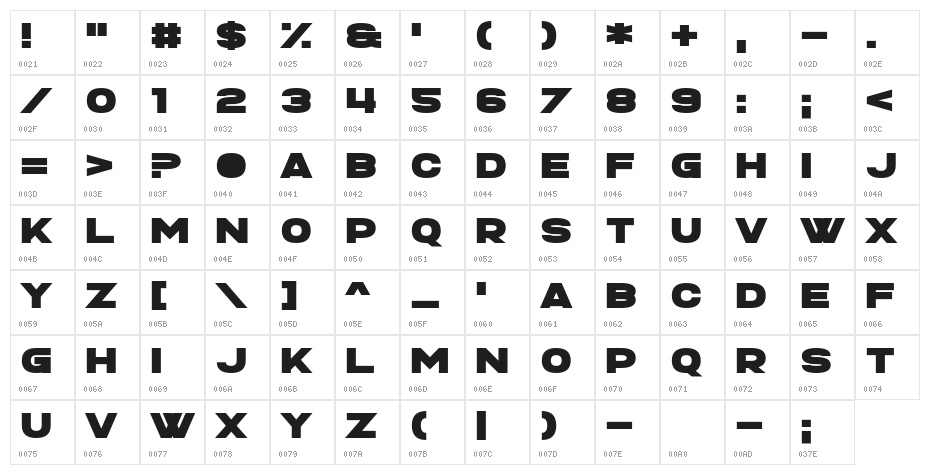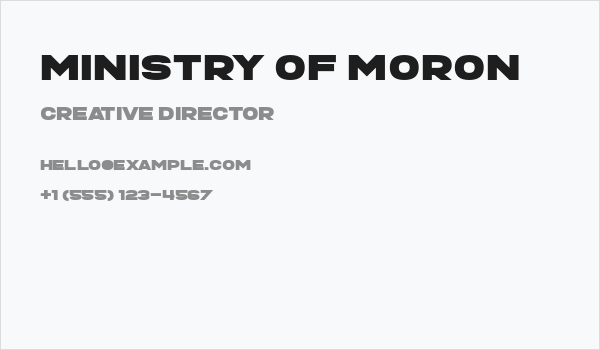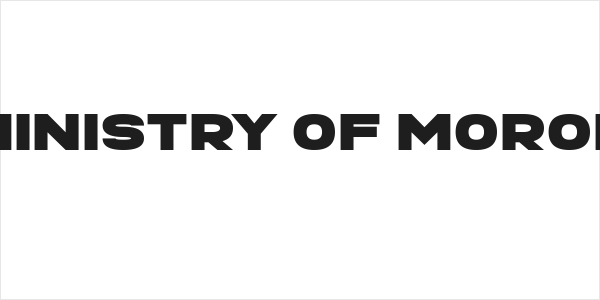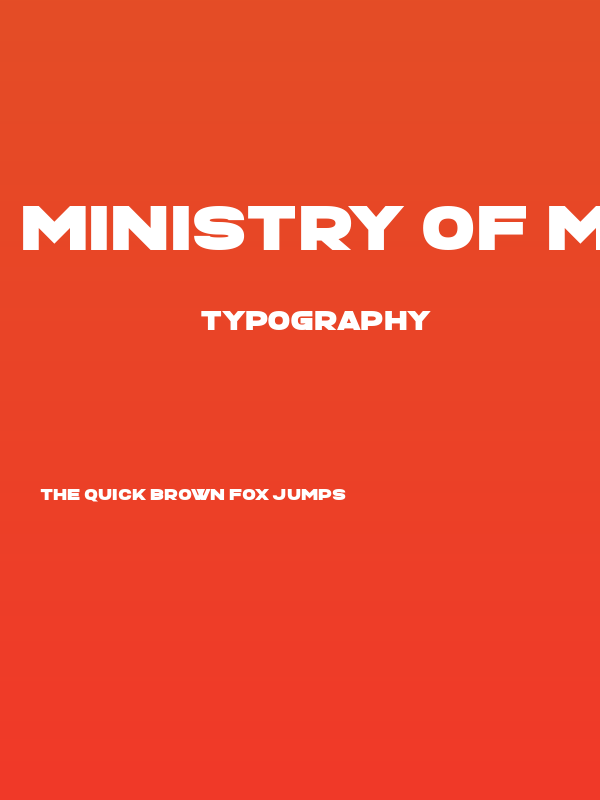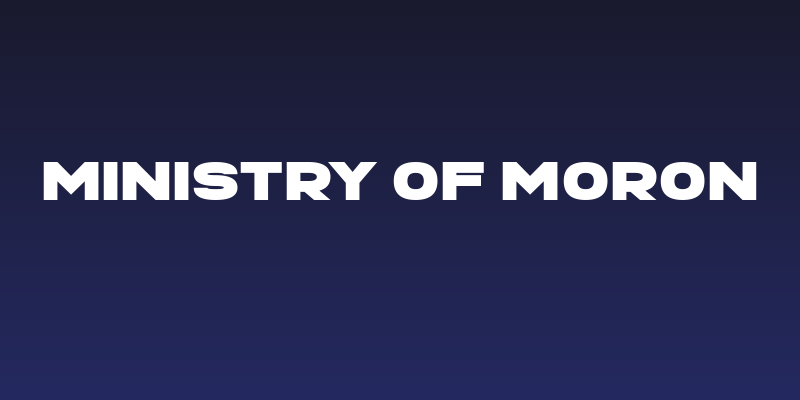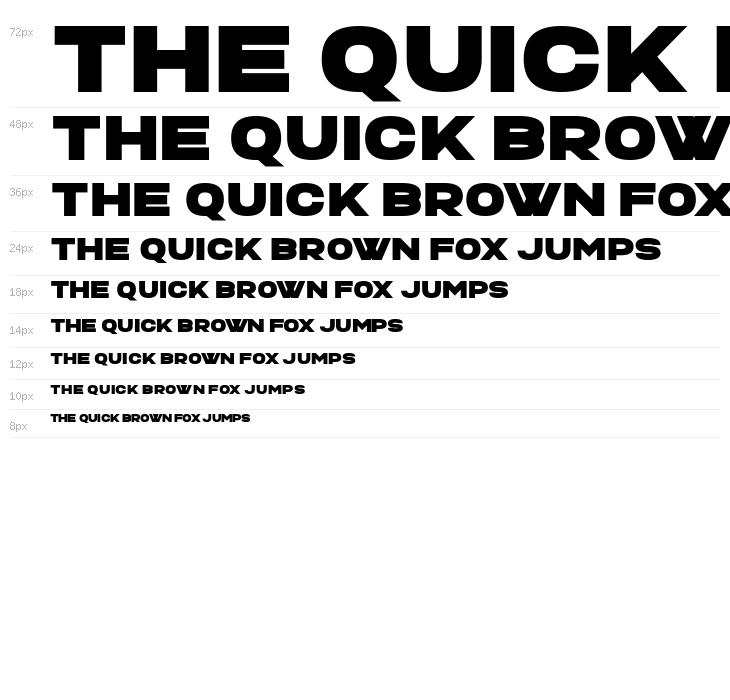
Ministry of Moron Font
Ministry of Moron Description
This font features a bold, geometric design with strong, angular lines and a modern aesthetic. The characters are uniformly wide, creating a sense of stability and strength. The uppercase letters are particularly striking, with a blocky appearance that commands attention. The numbers and special characters maintain this bold style, ensuring consistency across all glyphs. The font's design is clean and uncluttered, making it suitable for impactful headlines and branding. Its boldness and geometric shapes give it a contemporary feel, ideal for projects that require a modern and assertive look.
| Proposed Projects | Ideal for branding, headlines, posters, and any design requiring a modern, impactful look. |